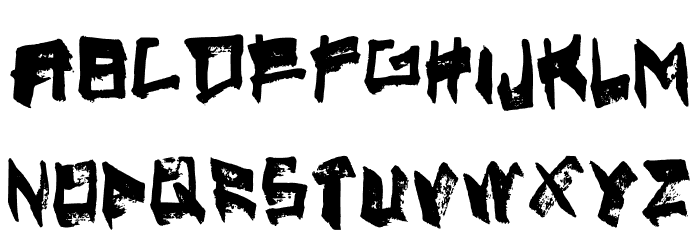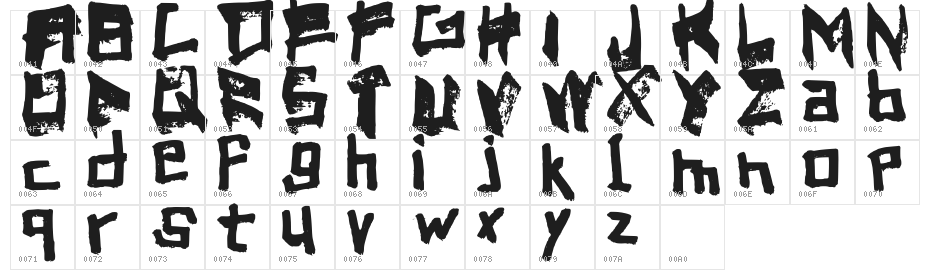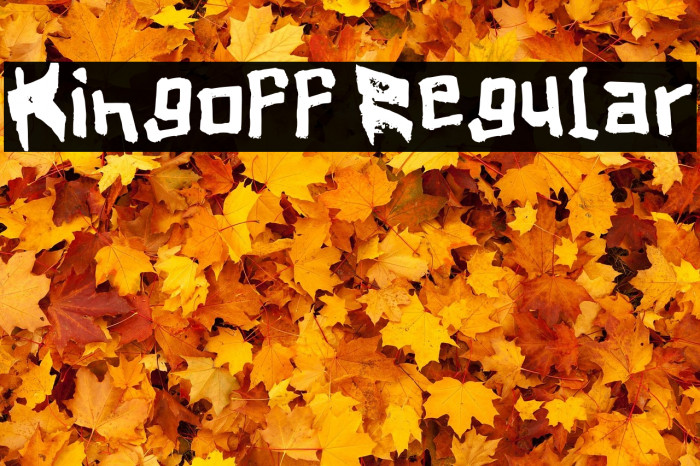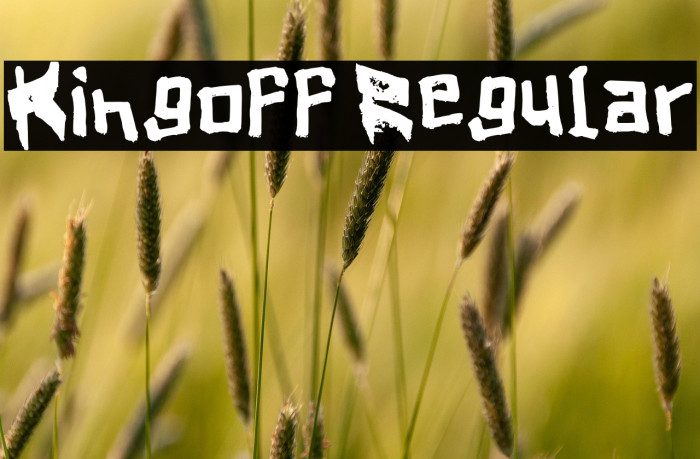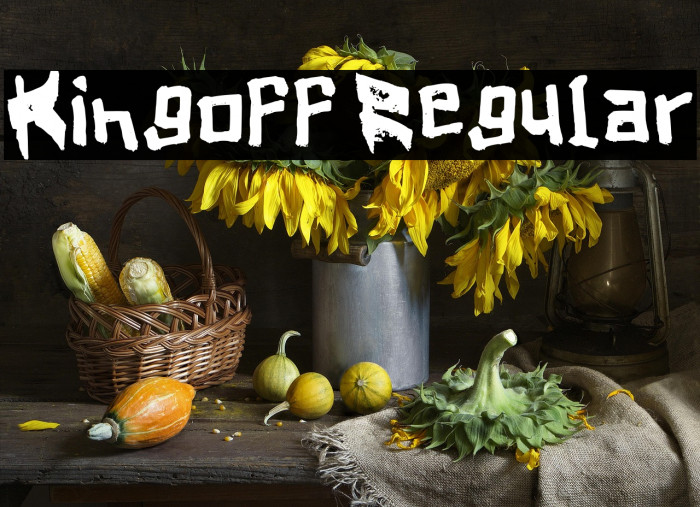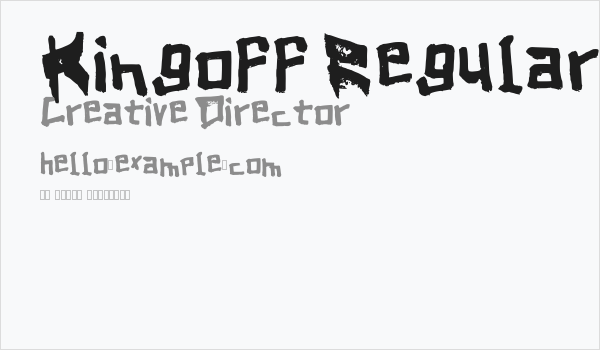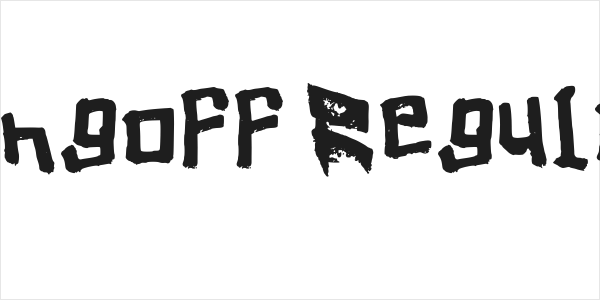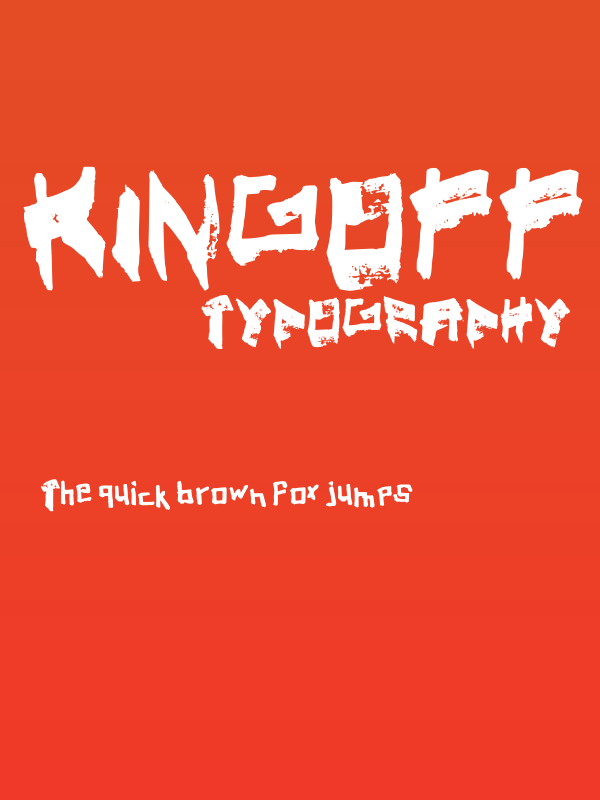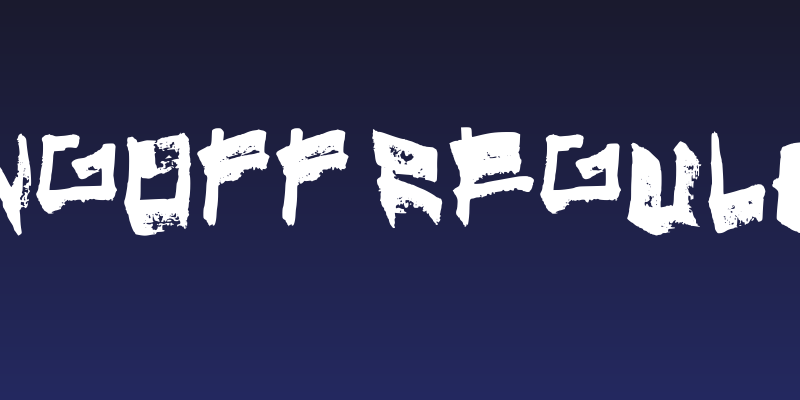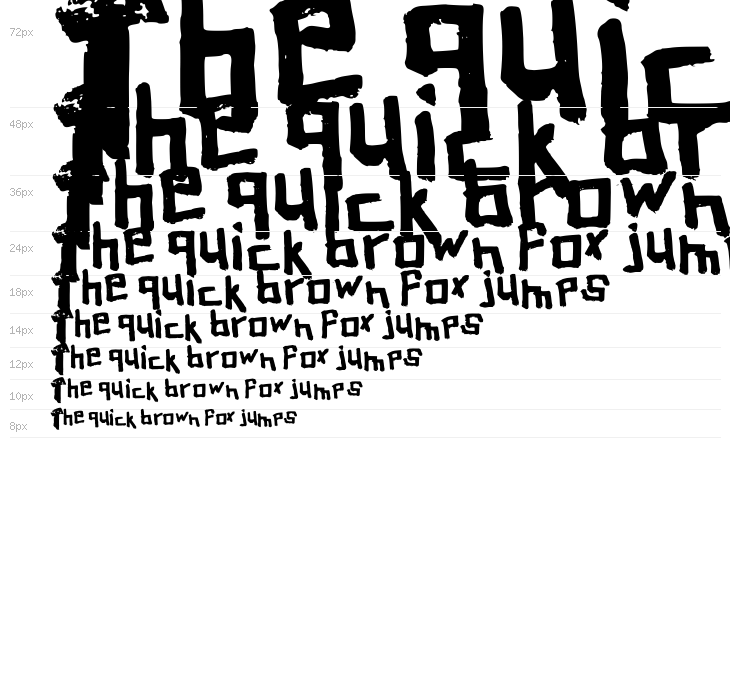
Kingoff Regular Font
Kingoff Regular Description
This font features a bold, distressed style with a rough, textured appearance that gives it a grungy and edgy feel. The characters are irregular and appear as if they have been hand-painted with a brush, adding a dynamic and energetic quality. The uppercase and lowercase letters maintain a consistent style, with jagged edges and uneven strokes that create a sense of movement. The numbers and special characters follow the same aesthetic, ensuring a cohesive look across all elements. This font is ideal for designs that require a bold statement and a touch of rebelliousness.
| Overall Style | Grunge, Edgy |
| Proposed Projects | Ideal for music album covers, posters, streetwear branding, and edgy graphic designs. |